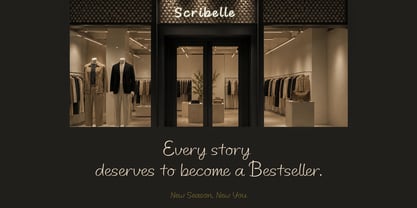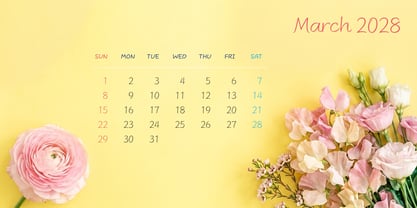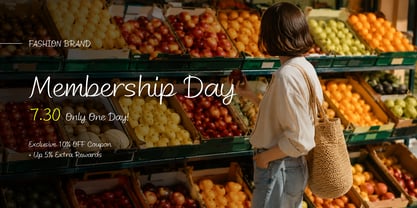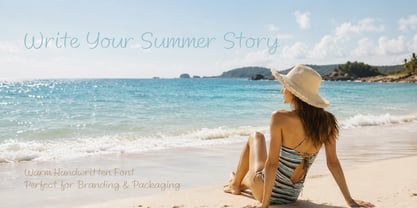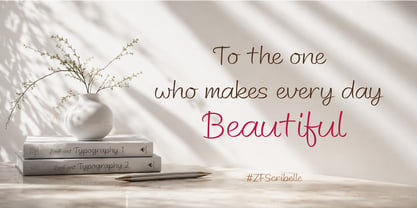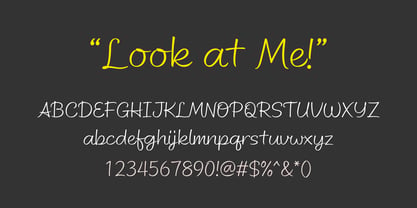
ZFScribelle
Scribelle is a handwritten typeface inspired by the elegance of ink pen writing. Delicate ink textures and naturally flowing strokes create an authentic handwritten feel while maintaining excellent readability.
Perfect for branding, packaging, stationery, journals, greeting cards, cafés, books, and lifestyle projects.
Bring warmth and personality to every word.